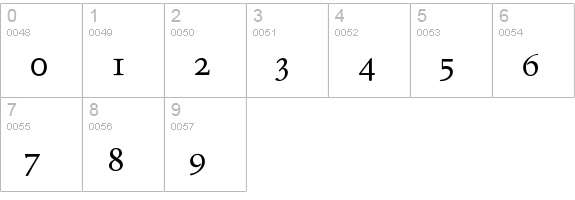
Dante MT Regular Small Caps & Oldstyle Figures is the standard, neutral variant in the Dante typeface family \xE2\x80\x94 well suited to general body text, paragraphs, and standard typographic work.
Dante MT Regular Small Caps & Oldstyle Figures font is a beautifully crafted typeface that exudes elegance and sophistication. Its small caps and oldstyle figures add a touch of vintage charm to any design project. The small caps offer a refined and timeless look, perfect for headings and titles, while the oldstyle figures provide a classic feel to numerical content. Whether you are creating a logo, designing a book cover, or working on a branding project, Dante MT Regular Small Caps & Oldstyle Figures font is sure to elevate your work to a whole new level of professionalism. What makes this font even more remarkable is that it is freely available to download at FontsMarket.com. This means that you can enjoy the beauty and versatility of Dante MT Regular Small Caps & Oldstyle Figures font without worrying about any costs. With its wide range of characters and exquisite detailing, this font is a must-have for designers and typographers alike. Its versatility allows it to be used in a variety of design contexts, from formal invitations to editorial layouts. The timeless appeal of Dante MT Regular Small Caps & Oldstyle Figures font is sure to make your designs stand out and leave a lasting impression. So, why wait? Visit FontsMarket.com today and download this stunning font for free!